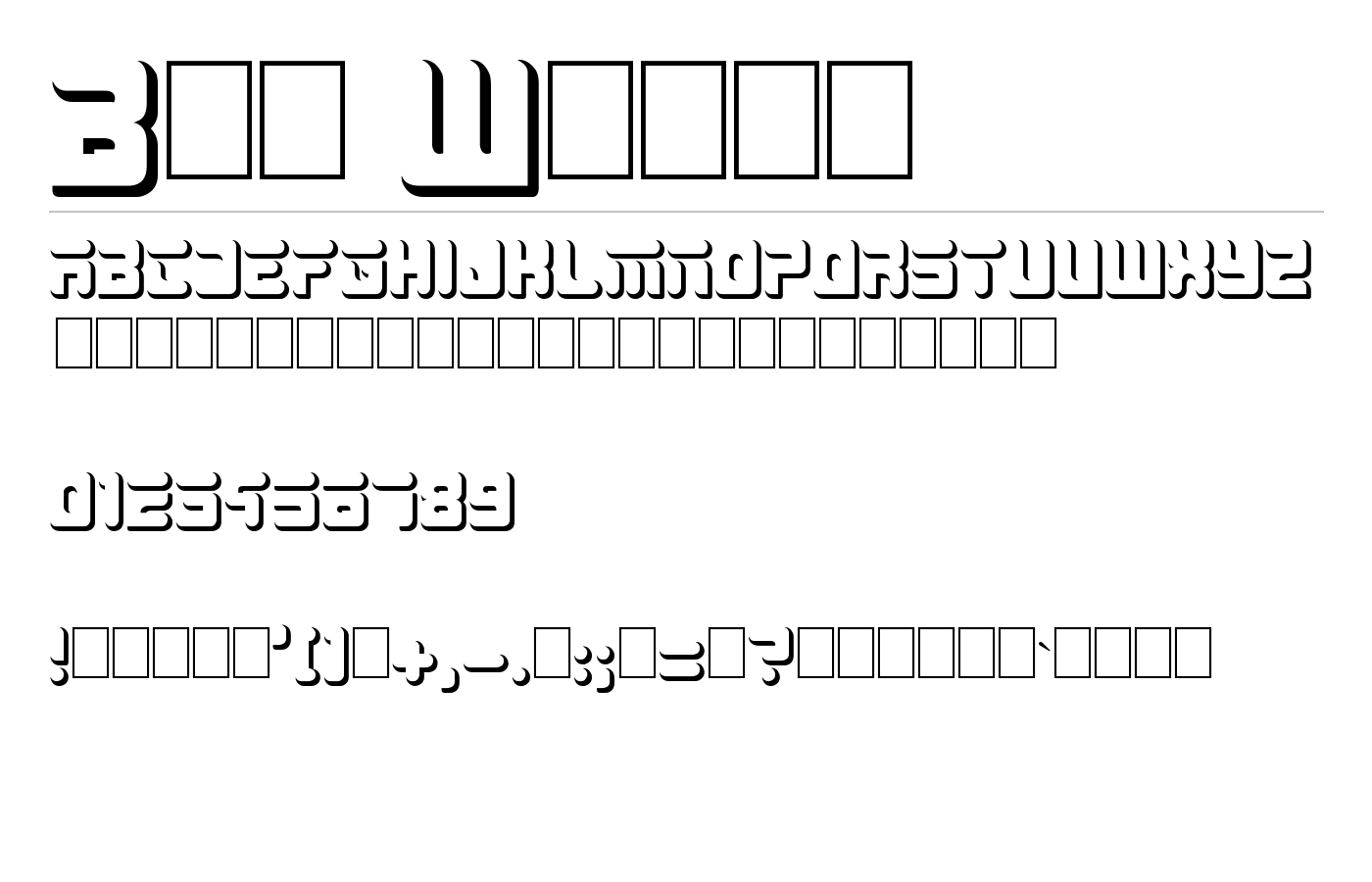
Big White is a bold, futuristic display font characterized by its wide, blocky letterforms and striking high-contrast strokes with sharp, angular terminals. Its unique, stencil-like design and strong geometric shapes make it perfect for attention-grabbing headlines, logos, and modern branding projects where a distinctive and tech-savvy vibe is desired. This font stands out best in large sizes and creative compositions, adding a dynamic and edgy personality to any design.
Big White Font